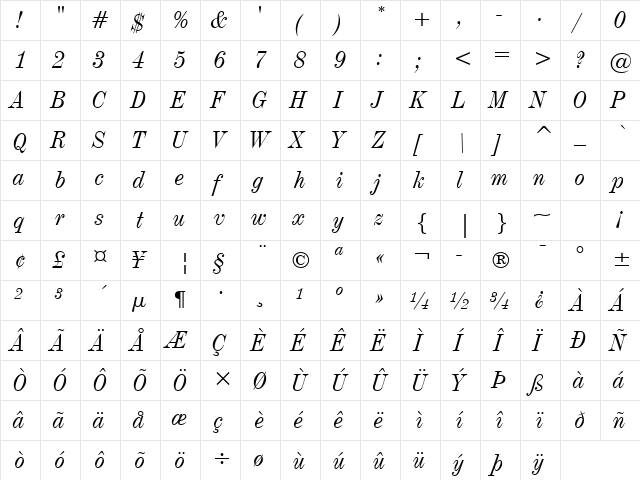
Industrial736 BT Italic
Design Context for Industrial736 BT Typeface
Industrial736 BT takes a measured approach to typography — its balanced proportions and neutral character make it a reliable workhorse for both digital and print work. The slanted form adds forward momentum and visual energy.
Pro Tip: Try Industrial736 BT for annotation and caption copy alongside an upright companion — the contrast in angle creates a dynamic but ordered typographic system.